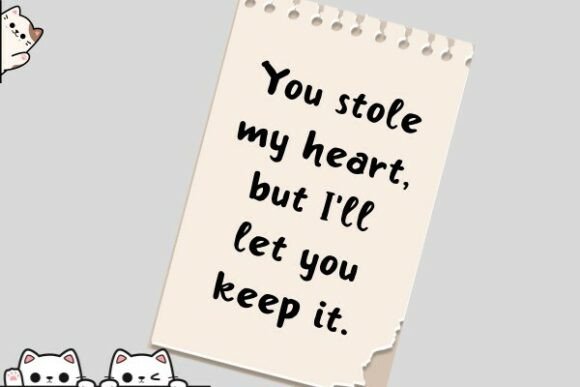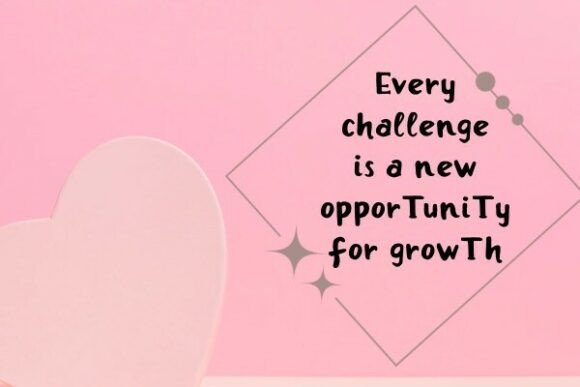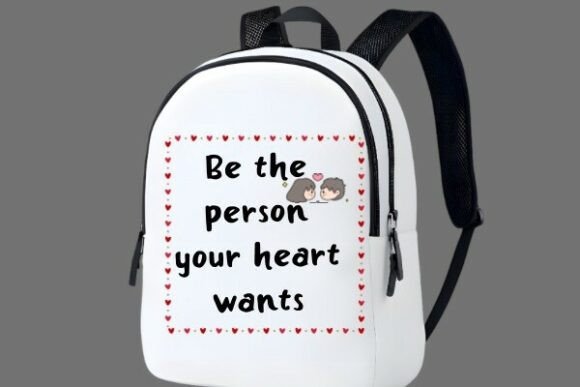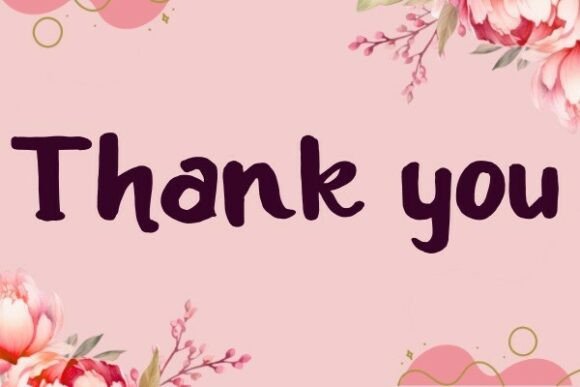
Introducing Almond Font: The Perfect Blend of Stylishness and Simplicity
Are you a designer or crafter looking for a font that exudes a deceptively simple aura? Look no further than Almond Font, a handcrafted typeface that’s perfect for a wide range of design projects. From invitation cards and greeting notes to signage, t-shirts, and mockups, Almond Font is a versatile choice that can help you showcase your creativity to the world.
What Makes Almond Font So Special?
Almond Font is a unique and stylish typeface that’s been carefully crafted to provide a perfect blend of simplicity and elegance. Its deceptively simple design makes it easy to read and understand, while its stylish elements add a touch of sophistication to any design project. Whether you’re creating a formal invitation or a casual t-shirt design, Almond Font is the perfect choice.
Key Features of Almond Font
- Handcrafted with love: Almond Font is a handcrafted typeface that’s been carefully designed to provide a unique and stylish look.
- Versatile: Almond Font is perfect for a wide range of design projects, from formal invitations to casual t-shirt designs.
- Easy to read: Despite its stylish elements, Almond Font is easy to read and understand, making it perfect for body text and headlines.
- Simple yet elegant: Almond Font’s deceptively simple design makes it a great choice for designers who want to add a touch of elegance to their designs.
Uses of Almond Font
Almond Font is a versatile typeface that can be used for a wide range of design projects, including:
- Invitation cards: Almond Font is perfect for formal and informal invitation cards, adding a touch of elegance and sophistication to your designs.
- Greeting notes: Whether you’re creating a birthday card or a holiday greeting, Almond Font is a great choice for adding a personal touch to your designs.
- Signage: Almond Font’s clear and easy-to-read design makes it perfect for signage, from store signs to billboards.
- T-shirts and apparel: Almond Font is a great choice for t-shirt designs and other apparel, adding a stylish and modern touch to your designs.
- Mockups: Whether you’re creating a mockup for a client or a personal project, Almond Font is a great choice for adding a professional touch to your designs.
Why Choose Almond Font?
There are many fonts available for designers and crafters, but Almond Font stands out for its unique blend of stylishness and simplicity. Here are just a few reasons why you should choose Almond Font for your next design project:
- Unique and stylish: Almond Font’s handcrafted design makes it a unique and stylish choice for designers who want to stand out from the crowd.
- Versatile: Almond Font can be used for a wide range of design projects, from formal invitations to casual t-shirt designs.
- High-quality: Almond Font is a high-quality typeface that’s been carefully crafted to provide a professional look and feel.
Almond Font is a versatile and stylish typeface that’s perfect for designers and crafters who want to add a touch of elegance and sophistication to their designs. With its deceptively simple design and easy-to-read elements, Almond Font is a great choice for a wide range of design projects. Whether you’re creating a formal invitation or a casual t-shirt design, Almond Font is the perfect choice for showcasing your creativity to the world.